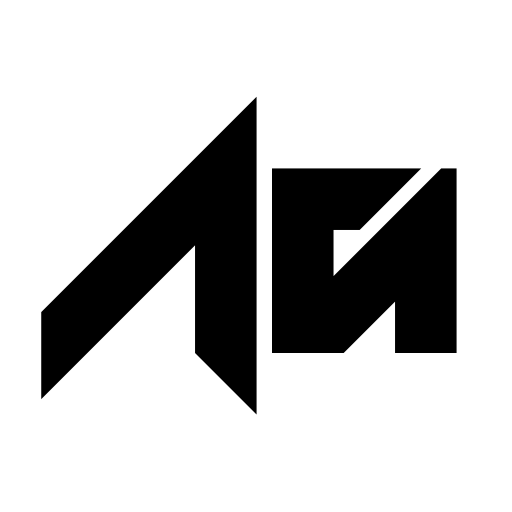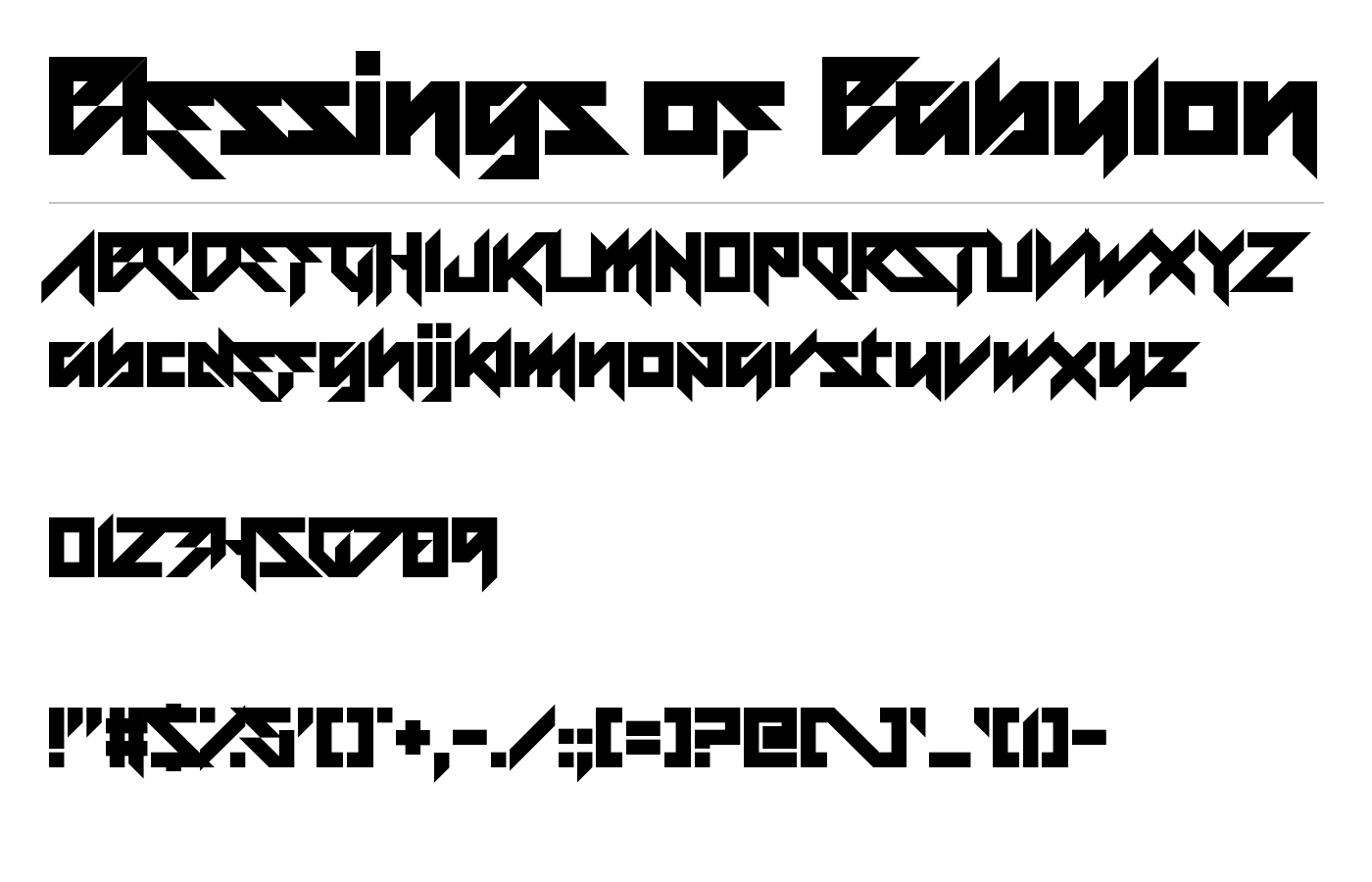
Blessings of Babylon is a bold, angular display font with a futuristic and geometric style, characterized by sharp edges and a condensed structure. Its striking, blocky letterforms create a strong visual impact, making it ideal for edgy branding, posters, or logos that need a modern, tech-inspired vibe. This font stands out best in large sizes where its unique shapes and aggressive personality can be fully appreciated.
Blessings of Babylon Font
About Blessings of Babylon Font
| Font family | Blessings of Babylon Font |
| Designer | NAL |
| Trademark | Blessings of Babylon by Chequered Ink. |